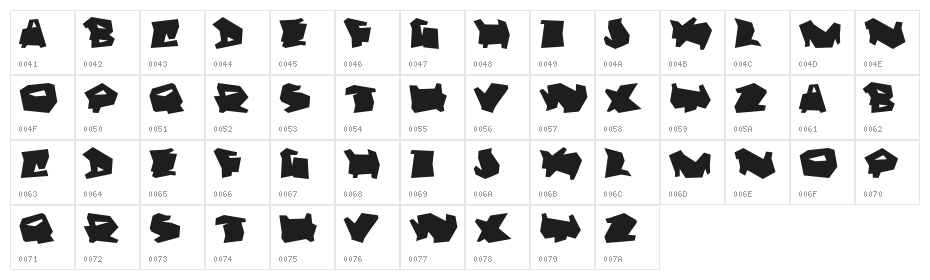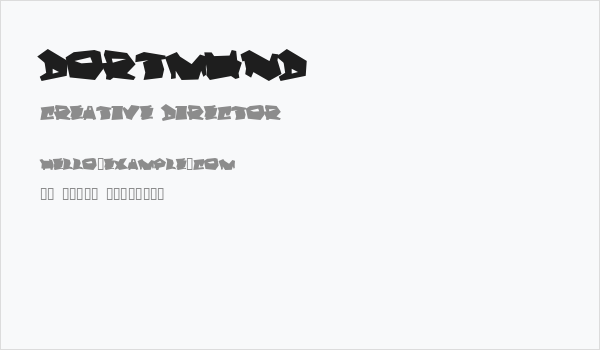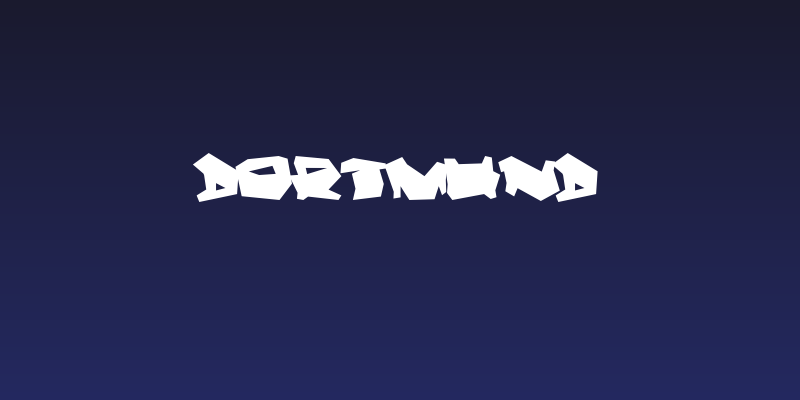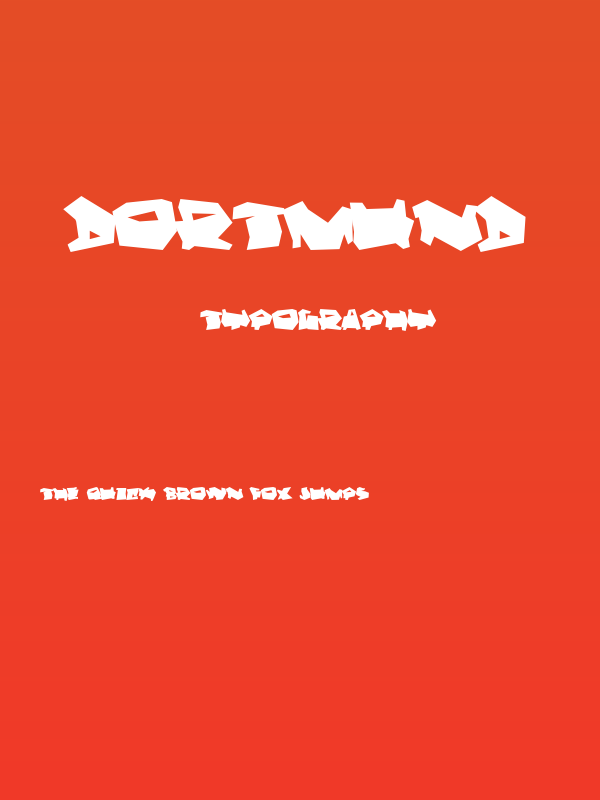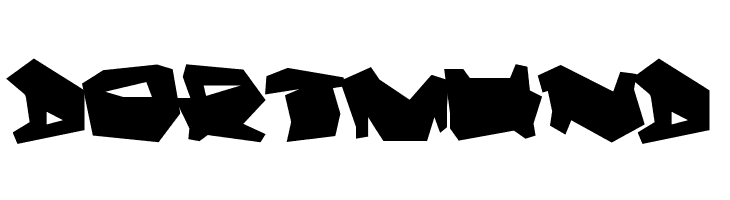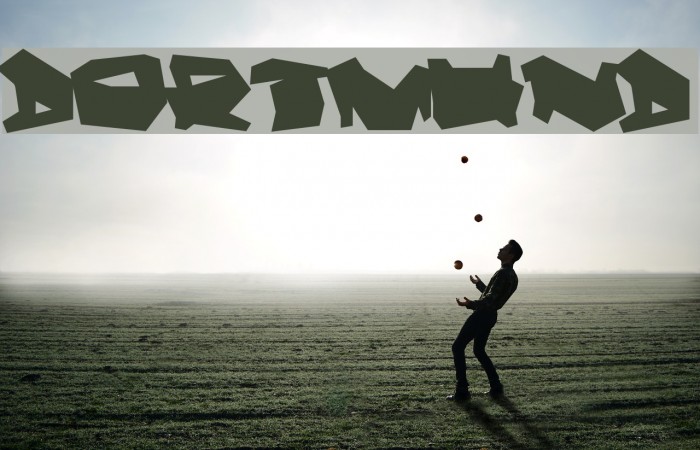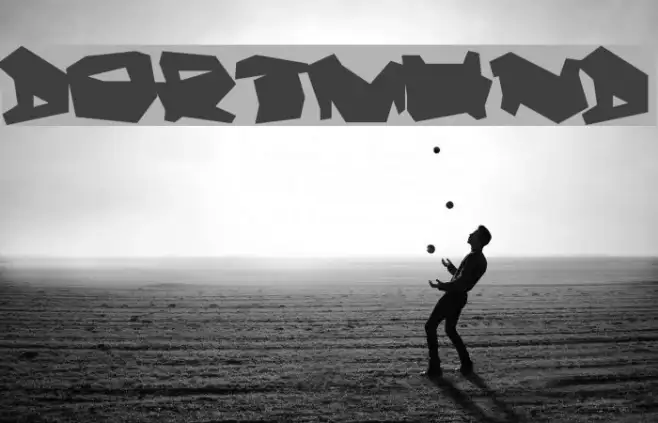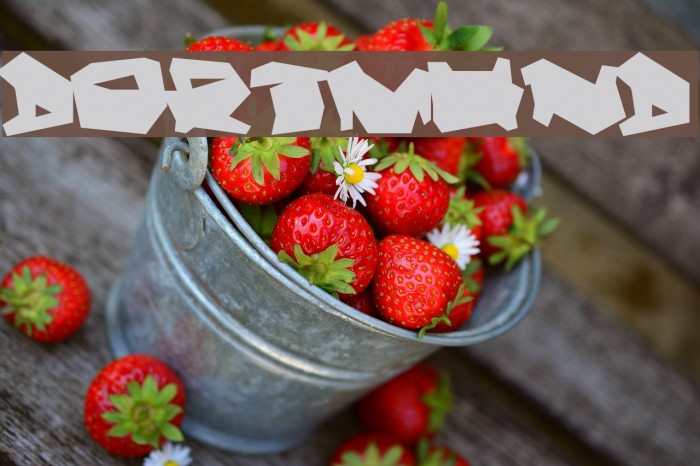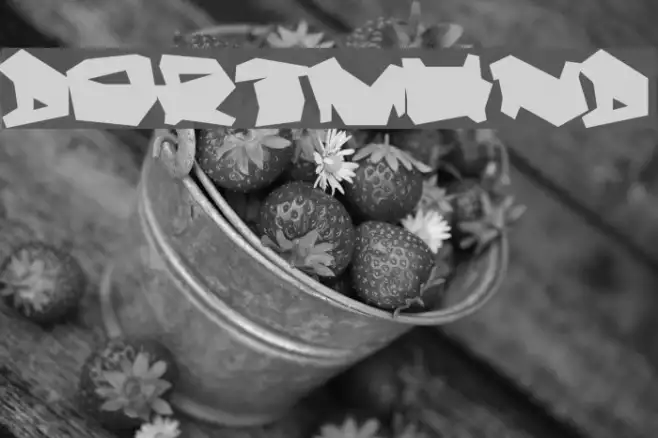
Dortmund Font
Dortmund Description
This font features a bold, angular design with a graffiti-like aesthetic. The characters are heavily stylized, with sharp edges and a blocky appearance, giving it a dynamic and urban feel. The uppercase and lowercase letters maintain a consistent style, emphasizing the font's edgy and rebellious nature. The numbers and special characters follow the same bold and angular design, ensuring uniformity across all glyphs. This font is highly decorative and stands out due to its unique and unconventional shapes, making it ideal for eye-catching designs.
| Use Case | Logos, Headlines, Posters |
| Proposed Projects | Perfect for street art-inspired designs, music album covers, posters, and branding for edgy or youth-oriented products. |